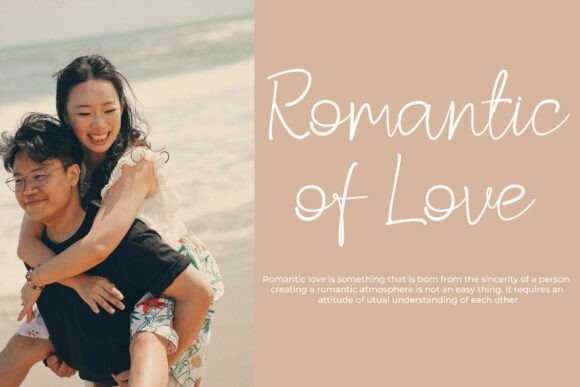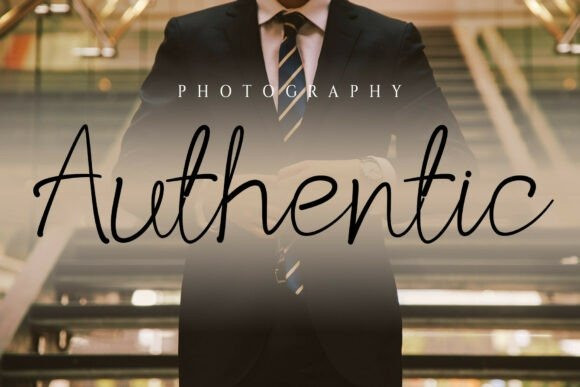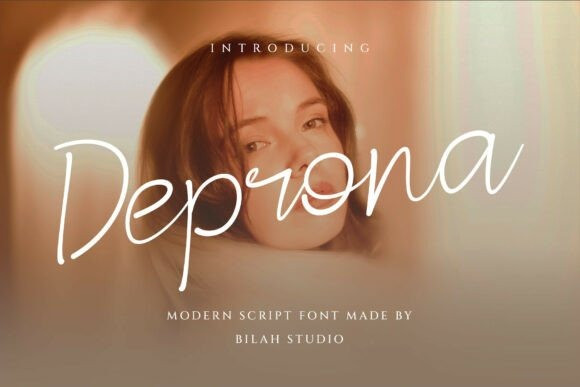
Deprona Handwritten Font
Deprona Handwritten Font is a modern font that can be interpreted professionally. We ensure this font looks modern and elegant, easy to read, stylish, attractive, and easy to use.
Deprona is the perfect choice for watermarks on photography, branding, weddings, signatures or logo designs, quotes, album covers, magazines, business cards, and many other design projects. Deprona is here to elevate your work to the next level!